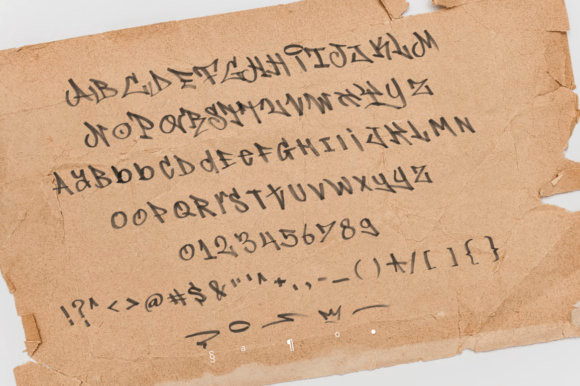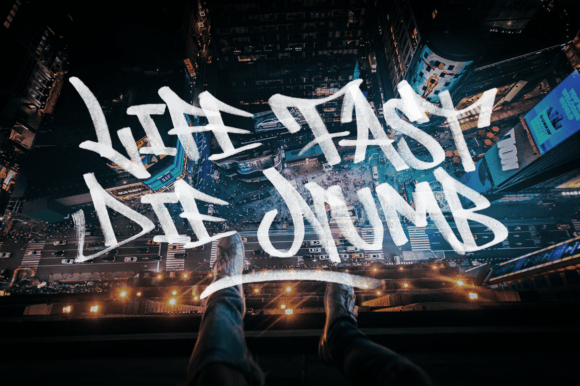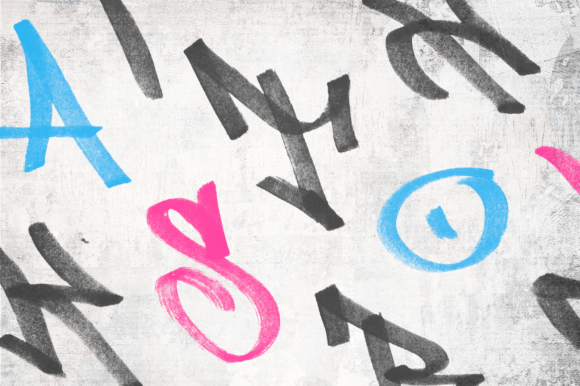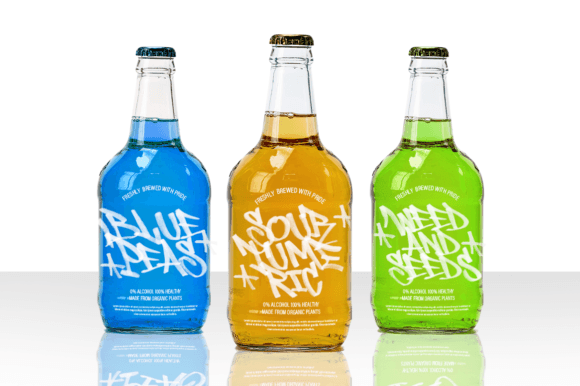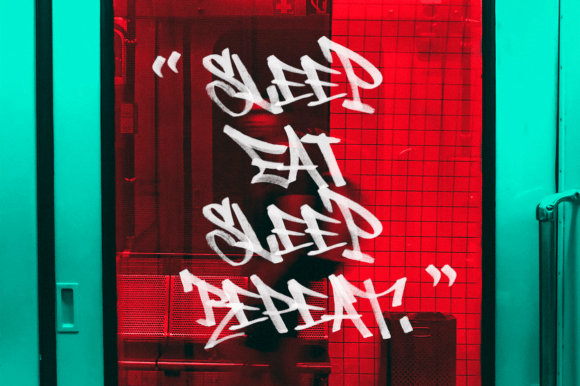
Introduction to Marker Tags Font Font
Fonts play a crucial role in design, and the Marker Tags Font font is a typeface that brings both character and versatility to any project. Whether you’re working on a branding project, a website, or a print design, the Marker Tags Font font offers a unique style that can elevate your work.
Created with real markers, the images were scanned to select the best letters for the fonts.
This font is ideal for those needing a realistic graffiti or grunge style, as it blends seamlessly with real elements when using the SVG fonts As these are realistic graffiti fonts, adjustments to kerning and spacing may be necessary.
Key Features of Marker Tags Font Font
Why Choose Marker Tags Font Font?
The Marker Tags Font font is more than just a typeface – it’s a design tool that helps you communicate your message with style and clarity. Its unique character set and versatile design make it suitable for a wide range of applications, from elegant invitations to bold headlines.
With its carefully crafted letterforms and balanced proportions, the Marker Tags Font font ensures readability and visual appeal across all mediums.
What makes Marker Tags Font font special?
The Marker Tags Font font stands out with its unique design, exceptional readability, and versatility across various design applications.